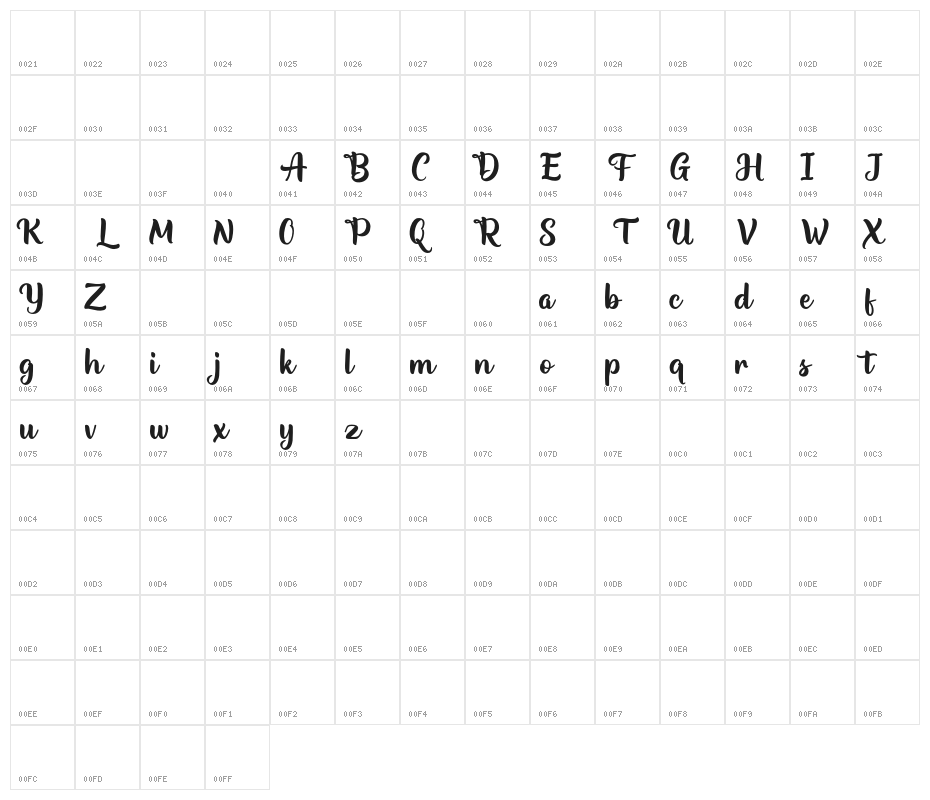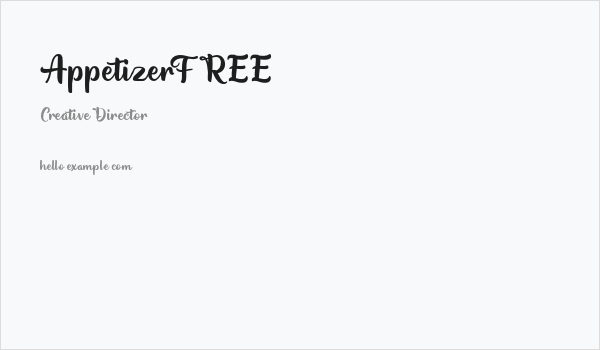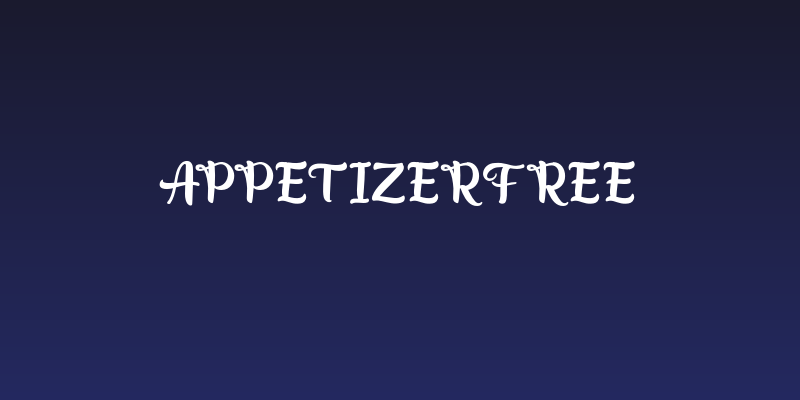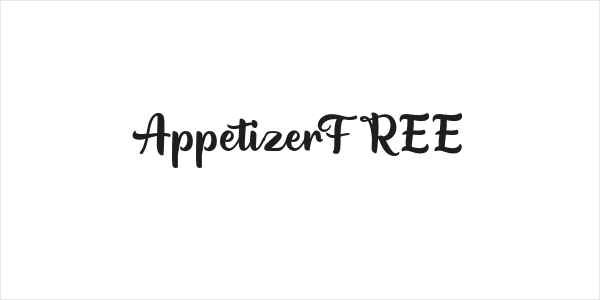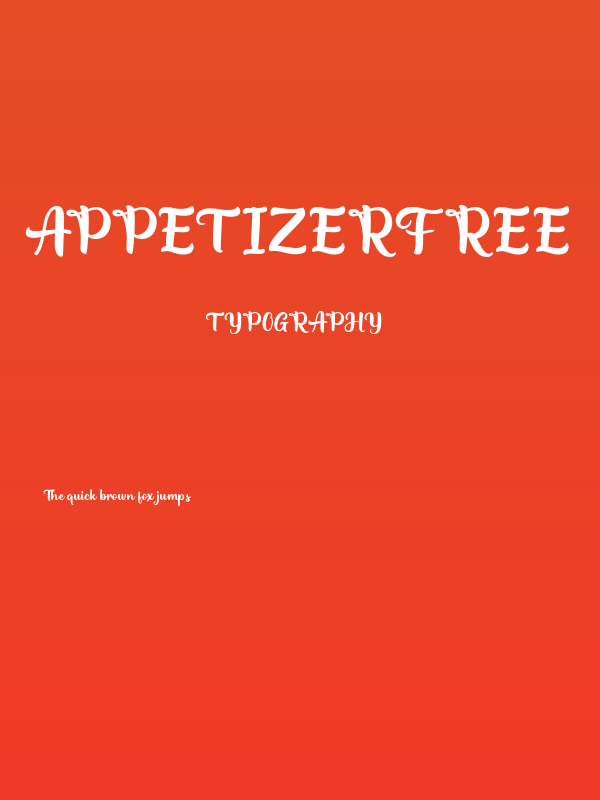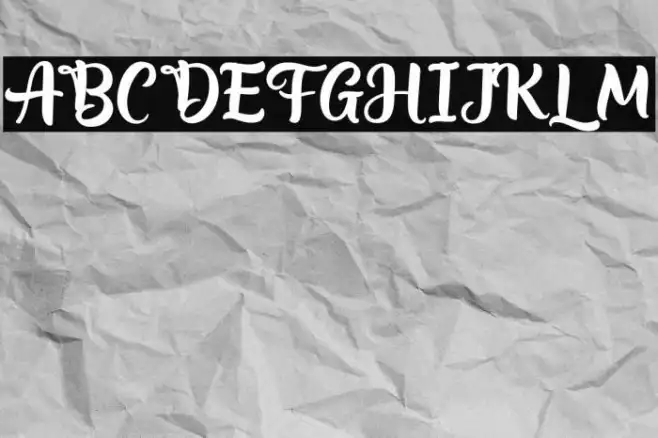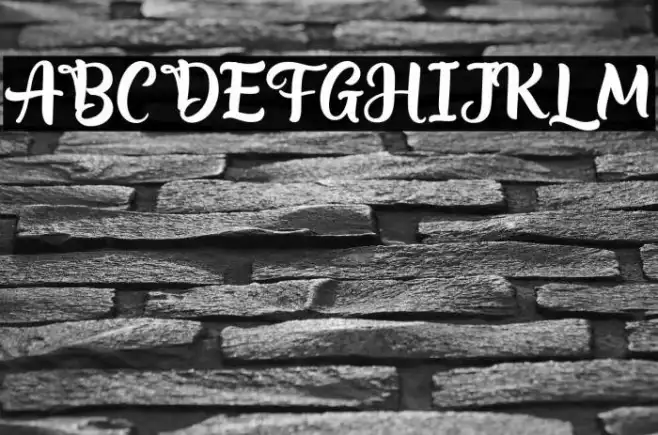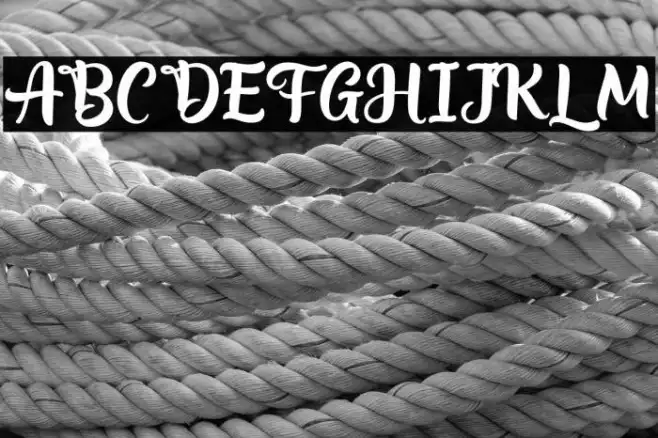
AppetizerFREE Font
AppetizerFREE Description
This font features a playful and energetic script style, characterized by its bold and flowing letterforms. The uppercase letters are slightly larger and more prominent, while the lowercase letters maintain a consistent, rounded appearance. The strokes are thick and smooth, giving the font a friendly and approachable feel. The overall design is cohesive, with each letter seamlessly connecting to the next, making it ideal for creating a sense of movement and rhythm in text. The font's whimsical nature makes it suitable for creative and informal projects.
| Proposed Projects | Ideal for invitations, greeting cards, playful branding, and social media graphics. |